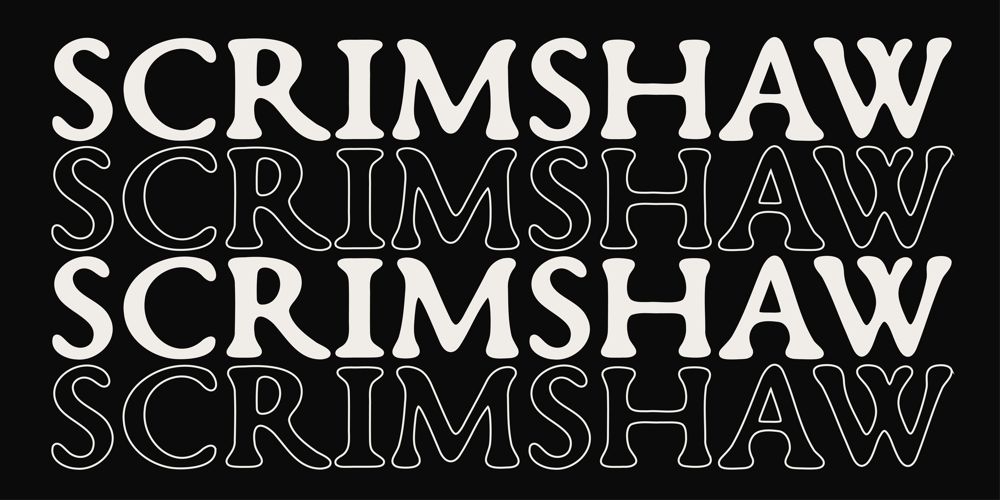
Scrimshaw Font Family was designed by published by Yazaroo. Scrimshaw contains 3 styles and family package options. Scrimshaw is a traditional serif font with a soft weathered edge. It is based on old carvings in bone by whalers on wooden ships and is perfect for old signage, tattoo studios, and rock bars.